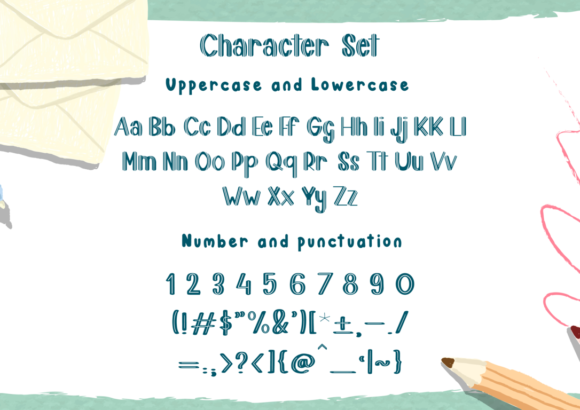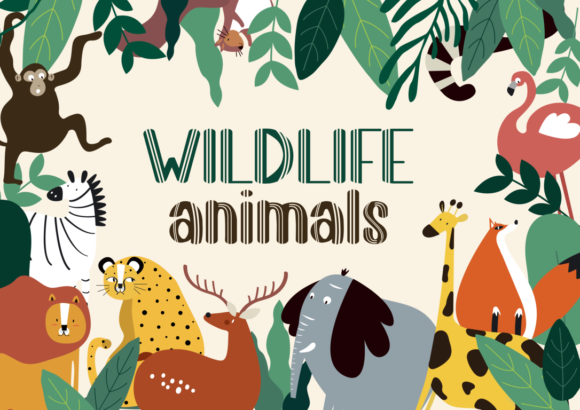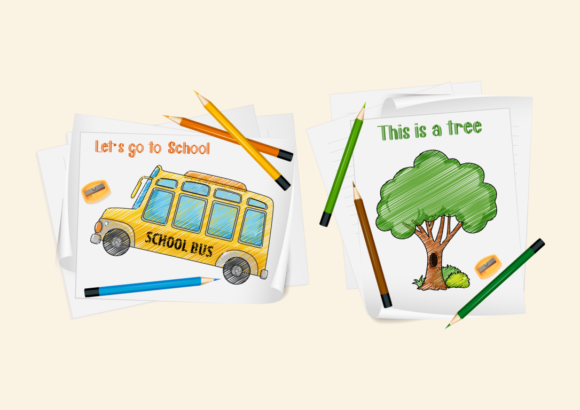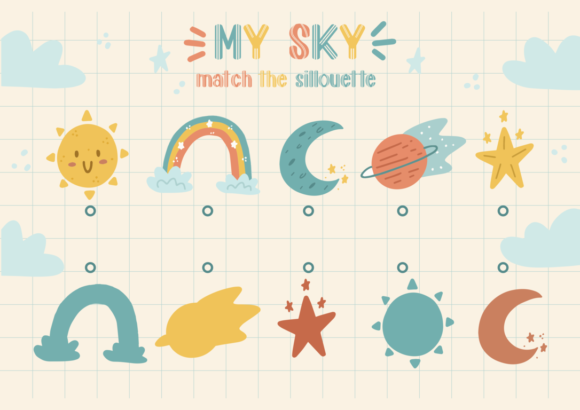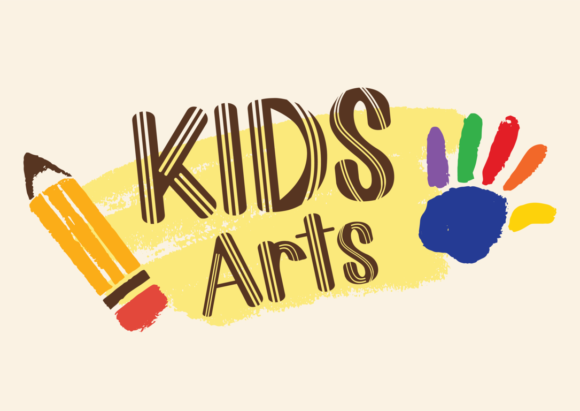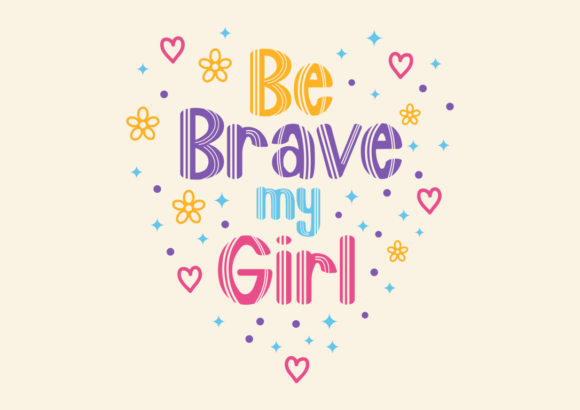
Crowded Lines Font: Adding a Playful Touch to Your Designs
In the world of typography, fonts play a crucial role in conveying the tone and personality of a project. Whether you’re working on a children’s book, a crafty DIY project, or a creative endeavor, the right font can make all the difference. This is where Crowded Lines Font comes in – a peculiarly attractive display font that’s unique, playful, and perfect for adding a friendly, creative touch to your designs.
The Unique Charm of Crowded Lines Font
Crowded Lines Font is a one-of-a-kind typeface that stands out from the crowd. Its peculiar charm lies in its crowded, whimsical design, which gives it a distinctly playful feel. The font’s unique character makes it an excellent choice for projects that require a touch of personality and creativity. Whether you’re designing a children’s book, a craft project, or a creative endeavor, Crowded Lines Font is sure to add a dash of fun and whimsy to your work.
Perfect for Children’s Projects
When it comes to designing projects for children, it’s essential to use a font that’s engaging, fun, and easy to read. Crowded Lines Font ticks all these boxes, making it an excellent choice for children’s books, educational materials, and other kid-friendly projects. The font’s playful design will capture children’s attention and imagination, making your project stand out from the rest.
Crafty Ideas and Creative Projects
Crowded Lines Font is not just limited to children’s projects. Its unique design makes it an excellent choice for various crafty ideas and creative projects. Whether you’re working on a DIY craft project, a scrapbook, or a handmade card, this font will add a touch of personality and whimsy to your work. The font’s playful design will also complement hand-drawn illustrations, doodles, and other creative elements, making your project truly special.
Key Features of Crowded Lines Font
• Unique and Playful Design: Crowded Lines Font boasts a peculiarly attractive design that’s both unique and playful.
• Display Font: This font is perfect for display purposes, making it ideal for headings, titles, and other prominent text elements.
• Easy to Read: Despite its crowded design, Crowded Lines Font is surprisingly easy to read, making it suitable for a wide range of projects.
• Versatile: This font can be used for various projects, including children’s books, craft projects, DIY endeavors, and more.
Tips for Using Crowded Lines Font
To get the most out of Crowded Lines Font, here are some tips to keep in mind:
• Use it as a Display Font: Crowded Lines Font is perfect for display purposes, so use it for headings, titles, and other prominent text elements.
• Pair it with Simple Fonts: To create visual balance, pair Crowded Lines Font with simpler fonts for body text and other secondary elements.
• Experiment with Colors: The font’s playful design lends itself well to bright, bold colors, so don’t be afraid to experiment and find the perfect color scheme for your project.
Crowded Lines Font is a unique and playful display font that’s perfect for adding a friendly, creative touch to your designs. Its peculiar charm makes it an excellent choice for children’s projects, crafty ideas, and creative endeavors. With its easy-to-read design and versatile nature, this font is sure to become a staple in your design toolkit. So why not give Crowded Lines Font a try and see how it can elevate your designs to the next level?